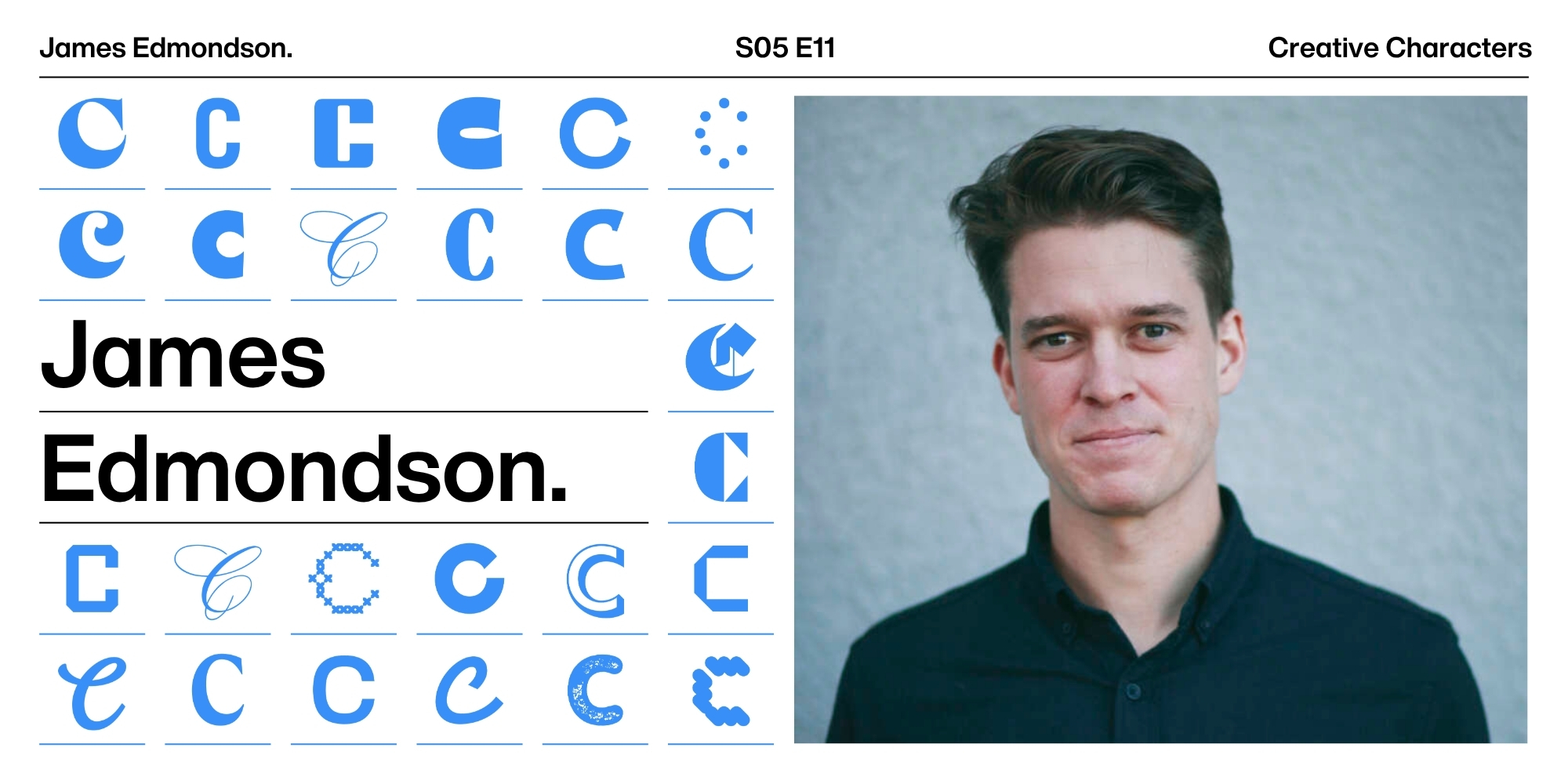
Creative Characters Reprint: Irreverent type design with James Edmondson.
James Edmondson.
Ohno Type Company is an industry rebel. Equal parts punk and precision, the studio is a direct reflection of founder James’ Edmondson love of expression and eccentricity. From globular California hippie text (Chee) to deceptively complex takes on classic geometric forms (Polymath), James and his team chart their own course through the wilds of type design.
In this interview from 2021, James discusses his story, process, and mindset with Monotype’s Charles Nix, and shares his thoughts on building a stable, rewarding creative career.